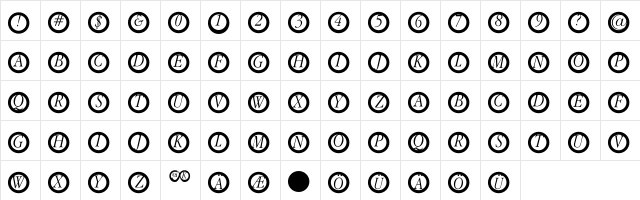
GaranitialRings Regular
Design Context for GaranitialRings Typeface
GaranitialRings is a composed and adaptable typeface that performs quietly and consistently across a wide range of design contexts.